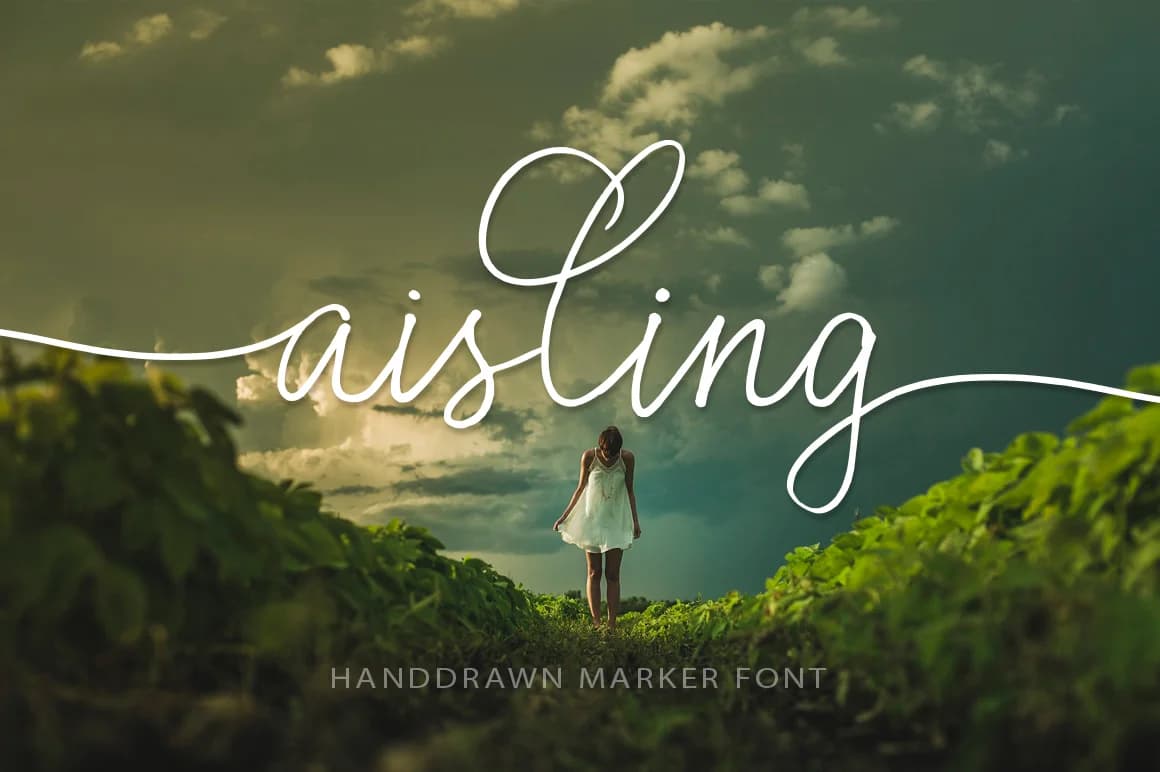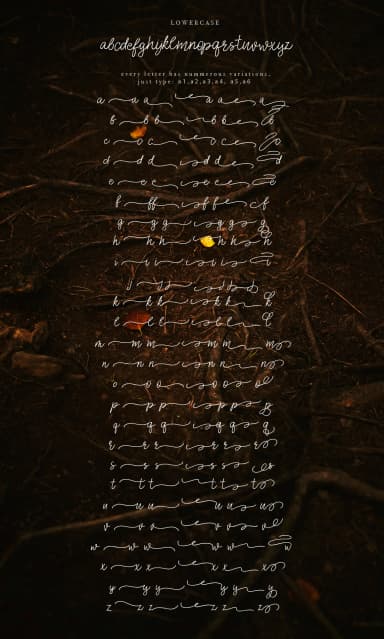
Aisling by Red Ink is an elegant handwritten script that captures the lyrical charm of Irish-inspired typography. This flowing, romantic typeface brings an organic grace to any design seeking a touch of sophisticated whimsy, making it ideal for creative professionals and small business owners who want personality and character without excessive ornamentation or corporate polish.
The font shines across diverse applications where refined, decorative lettering serves as a true visual anchor. Wedding invitation suites, luxury brand identity development, boutique product packaging, and personalized greeting card designs all benefit immensely from its fluid letterforms and authentic hand-drawn aesthetic. Social media graphics for lifestyle brands, independent makers, and artisanal businesses gain immediate visual distinction through Aisling's distinctive flourishes and consistent rhythm, helping your content stand out in crowded feeds and capture attention.
With its balance between ornamental appeal and legibility, this script proves remarkably versatile for standalone display purposes as well as complementary heading treatments alongside serif or sans-serif body copy. The graceful curves and thoughtfully crafted letterforms give projects an artisanal quality that resonates with audiences seeking authenticity and creative originality in their visual communication. Get the Aisling Font on Creative Fabrica to bring handcrafted elegance to your next design project.
Aisling Font is a script font that shines as a display or heading face. Pair it with a clean sans-serif or serif font for body text β the contrast creates a clear hierarchy while the two styles stay balanced and easy to read.
Aisling Font